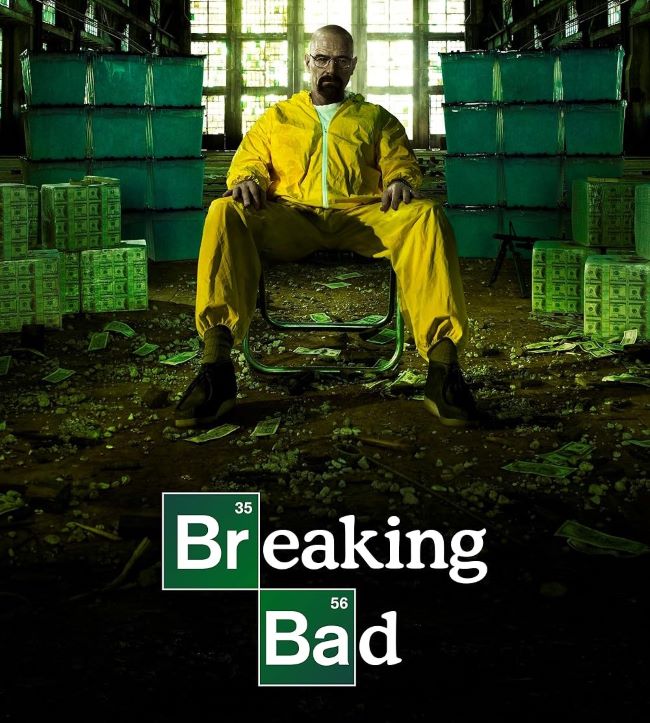
I like the Breaking Bad font because it perfectly captures the gritty, scientific, and tense world of the show. I think its bold, clean, and slightly industrial lettering mirrors the chemistry and danger that define Walter White’s transformation.
The way the font incorporates the periodic table elements into the logo design is clever and memorable, making it instantly recognizable to fans. I like how it balances simplicity with a subtle sense of unease—just like the show itself.